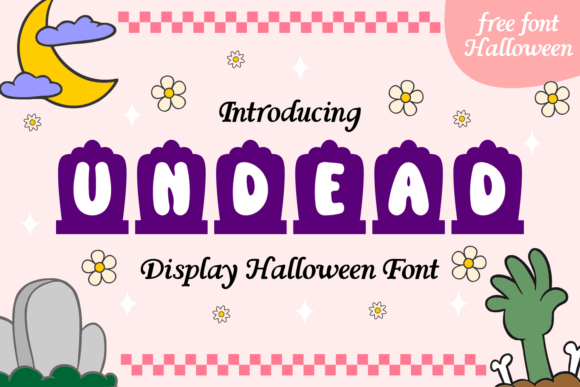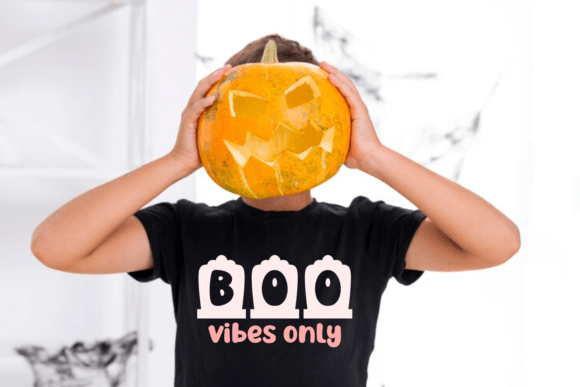
Free Font for Halloween SVG Projects
Get crafty with this cute free Halloween font from Creative Fabrica! Featuring bubble style letters on tombstones you can use the font to create Halloween tees, signs, mugs, banners and more.